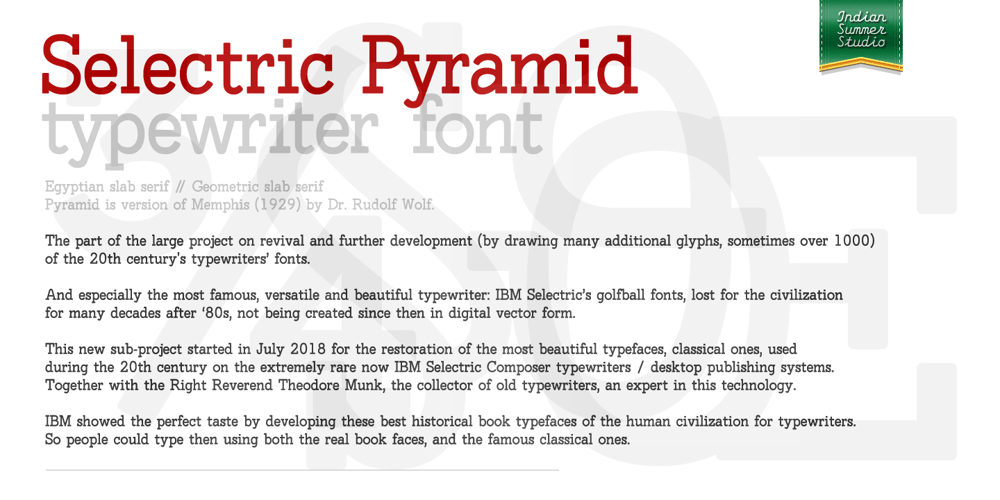
Selectric Pyramid Font Family was designed by Rudolf Wolf, Alexander Bobrov and published by Indian Summer Studio. Selectric Pyramid contains 1 styles and family package options. Selectric Pyramid is a typewriter font.Egyptian slab serif · Geometric slab serifPyramid is version of Memphis (1929) by Dr. Rudolf Wolf.The part of the large project on revival and further development (by drawing many additional glyphs, sometimes over 1000) of the 20th century’s typewriters’ fonts.